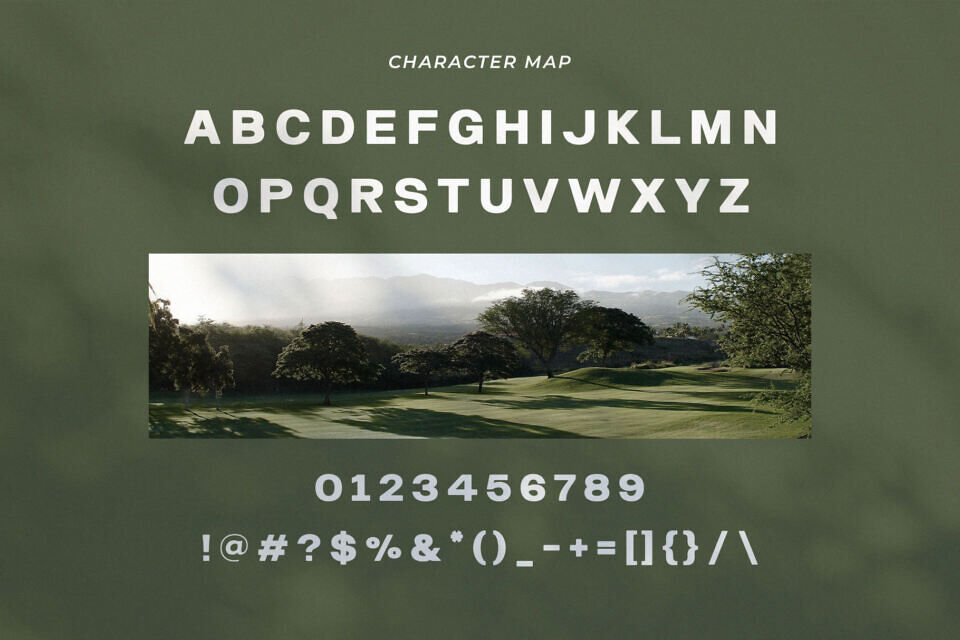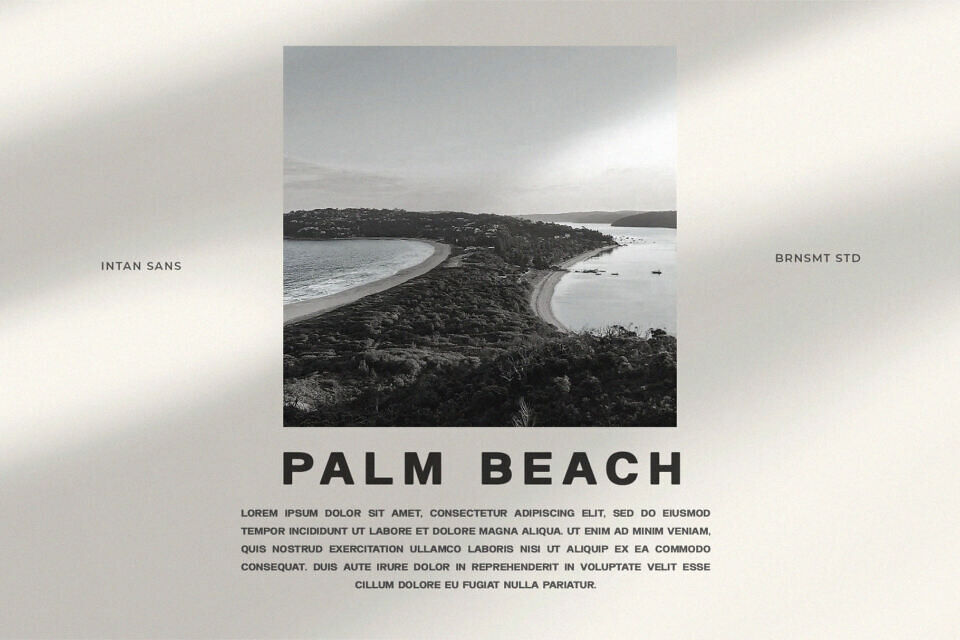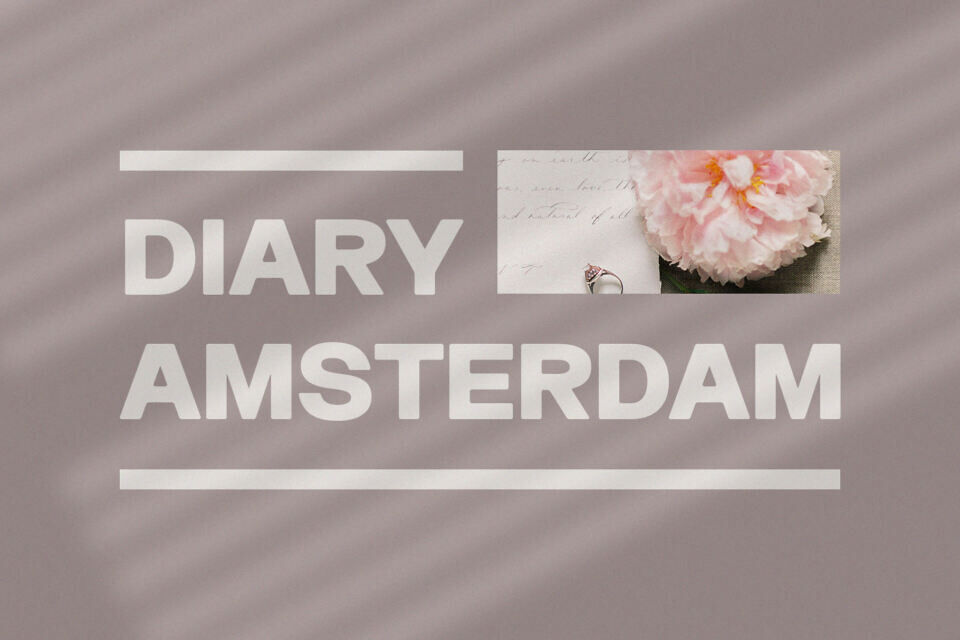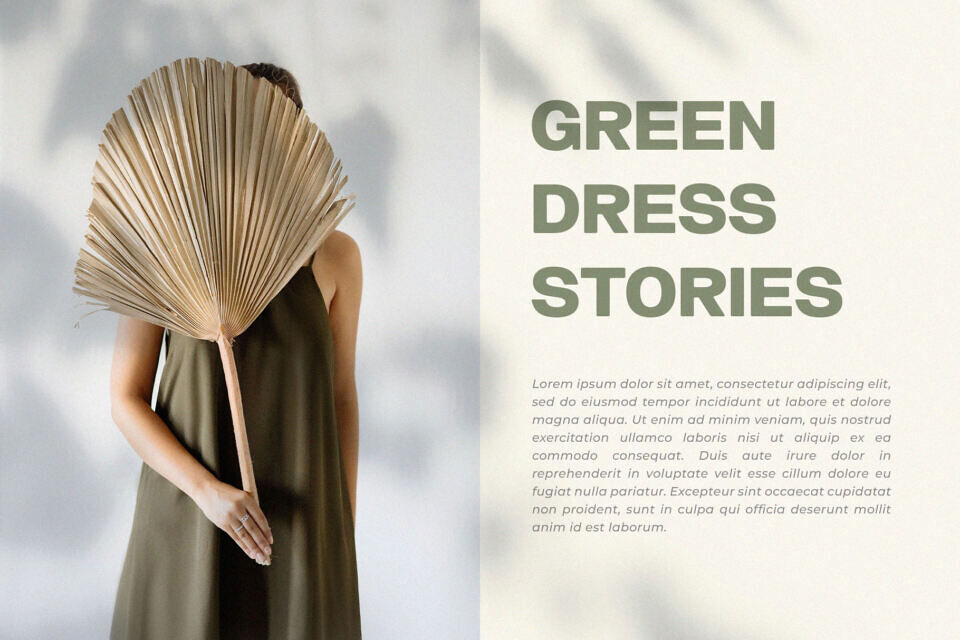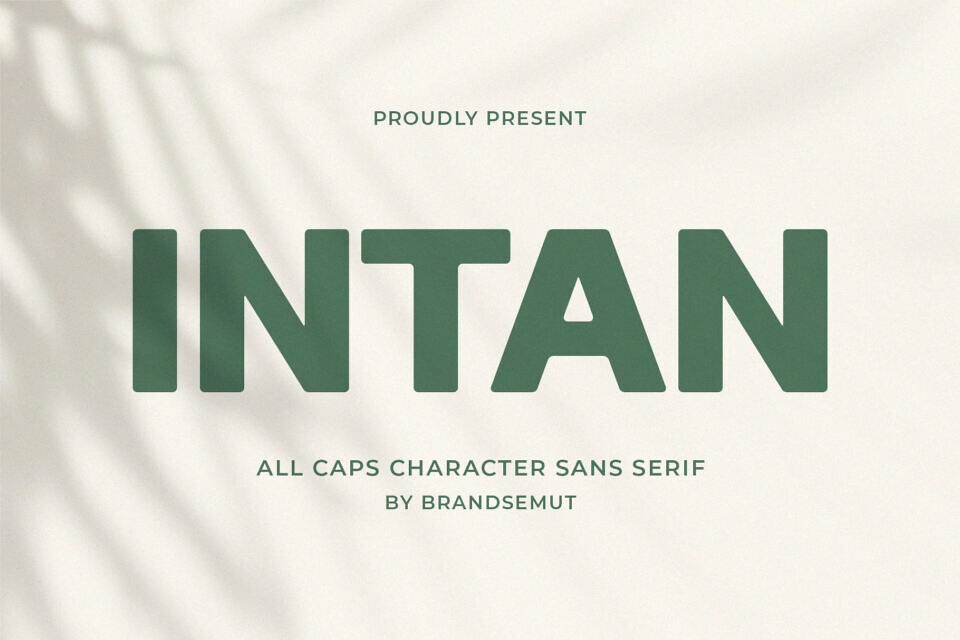
Intan Font
Introducing Intan Modern Sans Serif. Intan is a modern and classy font, best used as a display for headings, logos, branding, magazines, product packaging and invitations. Intan come with clean lines and smooth curves give any project an extra touch of class.